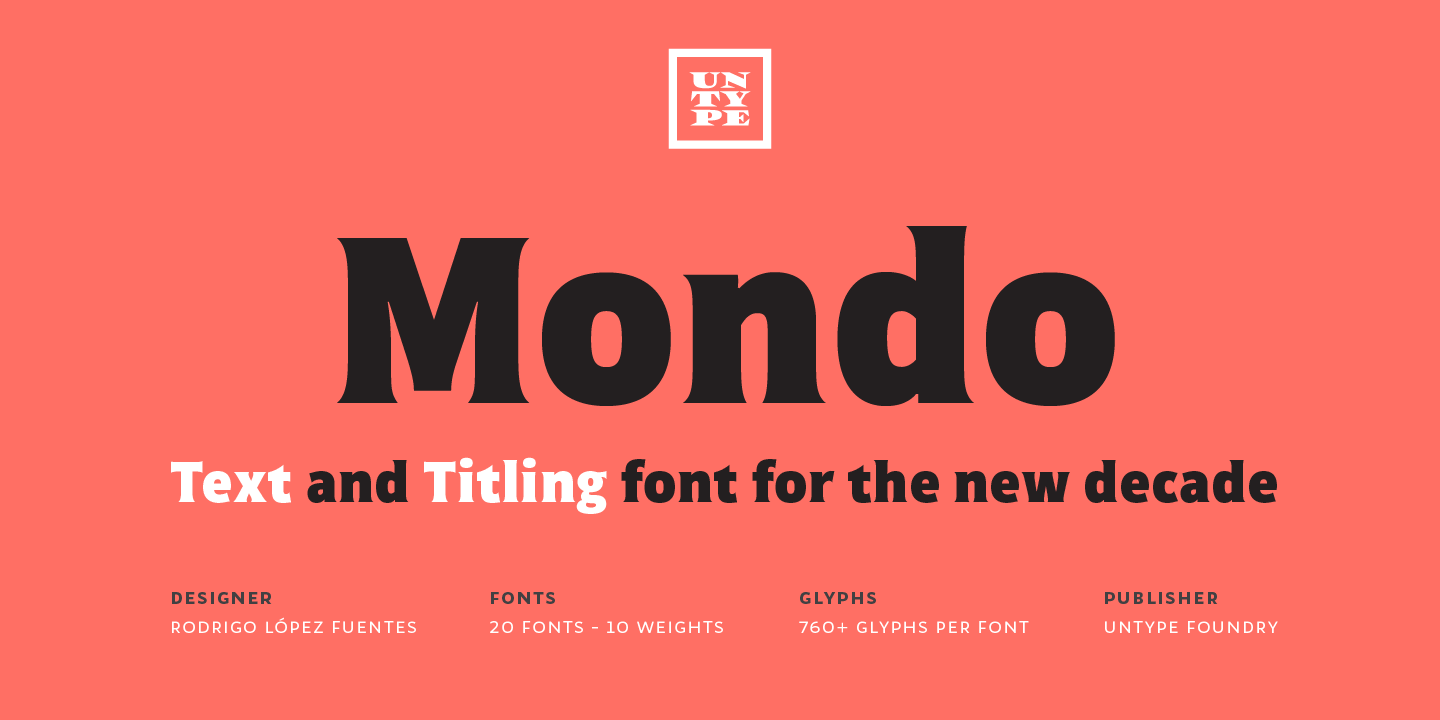
Mondo Font is an exceptional choice for a myriad of creative projects, bringing a vibrant and contemporary feel to any design. Envision it enlivening the branding for a dynamic startup, adding flair to event posters, or giving a unique edge to magazine layouts. It's also perfectly suited for eye-catching social media graphics, impactful website headers, and even custom apparel designs where a modern and memorable look is desired. Its distinctive character makes it ideal for projects that aim to be bold, youthful, and full of personality, ensuring your message resonates with energy and style in both digital and print mediums.
What makes Mondo Font truly exciting is its playful yet sophisticated aesthetic. It strikes a fantastic balance between being unique and highly legible, making it a standout choice for designers looking to infuse personality into their work. The font's innovative letterforms and balanced spacing create a harmonious visual experience that immediately grabs attention. It’s more than just a typeface; it’s a creative partner that helps convey a sense of modern artistry and fun. Whether you’re designing for a fashion brand, a music festival, or a tech company with a fresh outlook, Mondo Font offers the contemporary edge you need.
The Mondo Font family typically offers a range of weights and styles to maximize its utility across diverse design needs. You can often find variations such as Thin, Light, Regular, Medium, Bold, and sometimes even Italic versions. This comprehensive array allows for great flexibility in creating visual hierarchies and ensuring design consistency. From subtle subheadings to dominant headlines, the multiple weights within the Mondo Font family empower designers to achieve a cohesive and professional appearance across all their creative endeavors. For those searching for Mondo Font Free Download, remember to check the licensing terms carefully for commercial use.